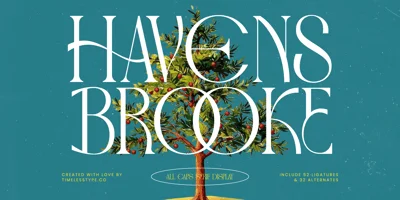
Havens Brooke Font
Havens Brooke Font is perfect for tranquil retreat center branding, serene wellness spa communications, peaceful nature preserve signage, mindful meditation center materials, gentle healing practice logos, rustic bed and breakfast promotions, scenic lakeside resort marketing, therapeutic massage studio graphics, contemplative spiritual center designs, and soothing sanctuary lifestyle branding.
What makes Havens Brooke Font so exciting is its remarkable ability to capture the serene beauty and gentle flow of peaceful water through gracefully flowing letterforms that seem carved by the patient persistence of brook water over smooth river stones and blessed with the kind of natural tranquility that emerges where clear streams wind through protected woodlands. This font embodies the essence of natural sanctuary and peaceful refuge, featuring softly structured characters that appear shaped by the same gentle forces that create the most restorative places on Earth where weary souls find healing and renewal. The naturally flowing letter shapes create an atmosphere of deep peace and protected sanctuary, making every word feel like it carries the promise of discovering hidden havens where stress dissolves and inner harmony is restored through connection with nature's most healing environments.
The Havens Brooke Font family includes Ultra Light, Light, Regular, Medium, and Bold weights, along with flowing script variations and nature-inspired decorative elements. Each style maintains the font's distinctive tranquil character while offering versatility for different sanctuary applications, from gentle meditation instructions to welcoming headlines that announce the discovery of peaceful retreats and natural healing spaces.
This peaceful typeface brings authentic natural sanctuary aesthetics to contemporary design projects. The Havens Brooke Font offers designers an invaluable resource for creating memorable brand identities that communicate tranquility, natural healing, and sanctuary authenticity. Whether you're developing retreat center branding, designing wellness facility materials, or creating peaceful nature communications, this font delivers unmatched serenity and natural sanctuary credibility.
The lovingly crafted letterforms in Havens Brooke Font feature gentle curves and flowing rhythms that mirror the soothing movement of water over stones and the peaceful cadence of breathing that connects all living beings to the earth's natural healing cycles. Each character has been designed to maintain perfect readability while expressing the contemplative wisdom and natural harmony that define authentic sanctuary spaces. The font's distinctive personality makes it ideal for applications requiring genuine tranquility authority and peaceful retreat appeal.
Wellness and sanctuary professionals appreciate how Havens Brooke Font effortlessly communicates peace, natural healing, and sanctuary authenticity while appealing to individuals seeking genuine refuge experiences that honor both personal restoration and environmental consciousness. The comprehensive character set includes nature symbols, peaceful decorations, sanctuary elements, and extensive international language support, ensuring global compatibility while preserving its distinctive havens brook identity. This makes it an invaluable resource for retreat centers, wellness facilities, nature preserves, and any organization seeking typography that embodies the fundamental values of natural healing, peaceful sanctuary, and the kind of gentle strength that comes from understanding that true restoration happens not through force or hurry, but through the patient application of nature's healing wisdom that flows like clear brooks through protected havens where body, mind, and spirit can find the deep rest and renewal that enables us to return to the world refreshed and ready to share the peace we have discovered in sacred spaces where time moves slowly and healing flows as naturally as water finding its way to the sea.